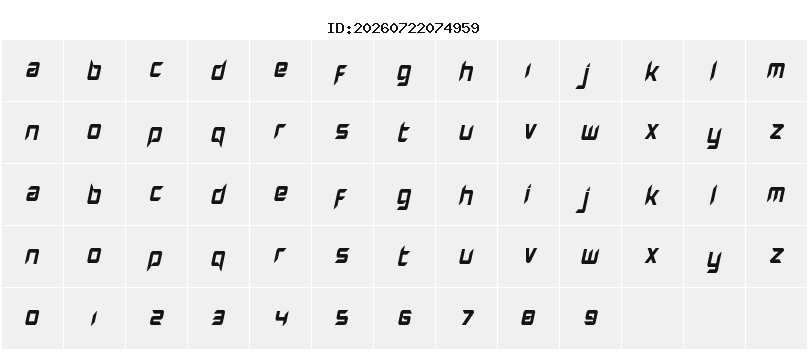
Hollow Point Condensed Italic Preview
• Font Name: Hollow Point Condensed Italic
• Font Style: Condensed Italic
• Full Font Name: Hollow Point Condensed Italic
About Hollow Point Condensed Italic.ttf
Hollow Point Condensed Italic.ttf is a modern, elegant sans-serif font designed for ultimate readability and visual harmony. Perfect for branding, headlines, web design, and print materials.